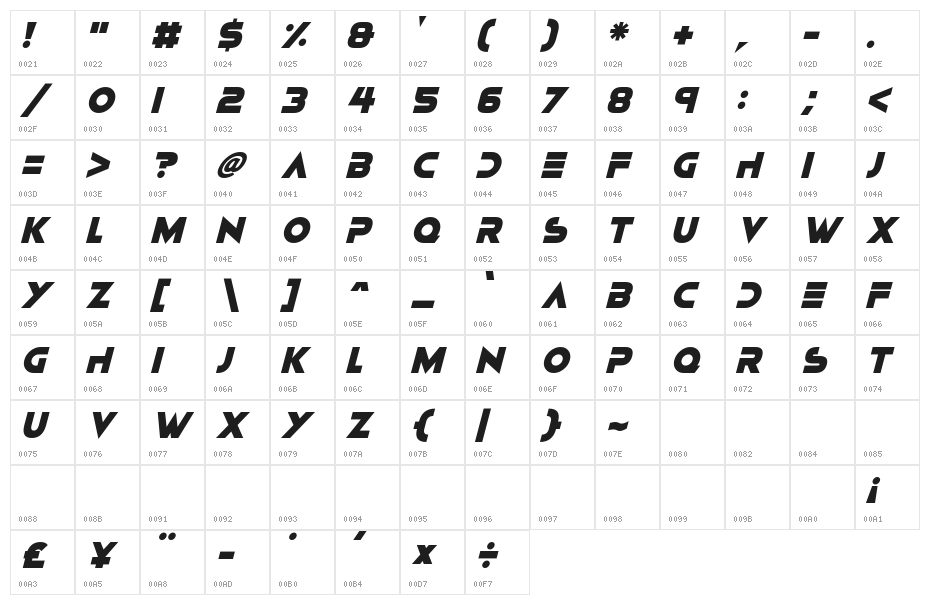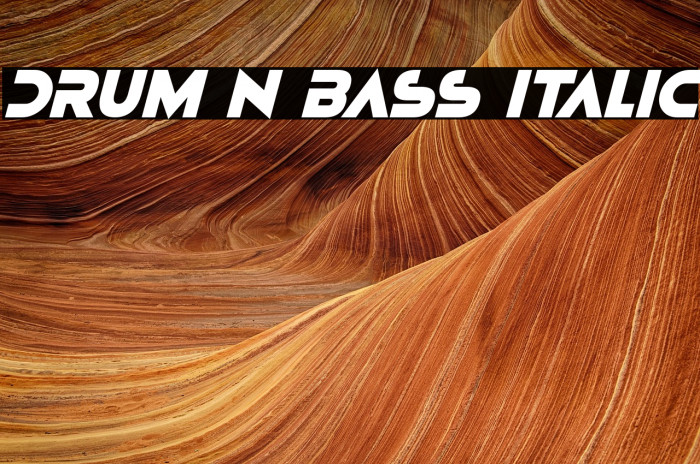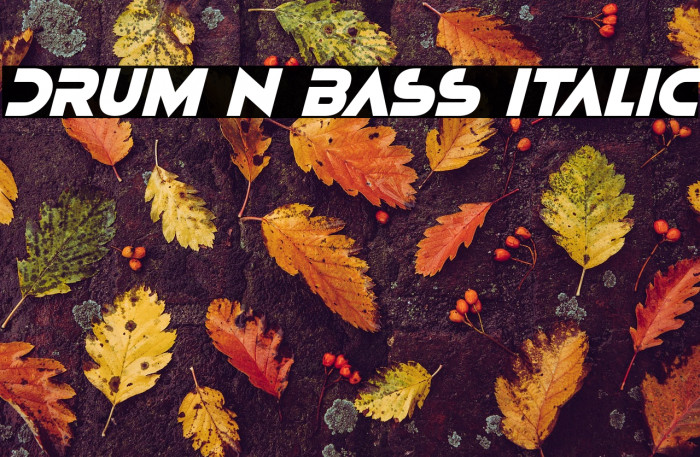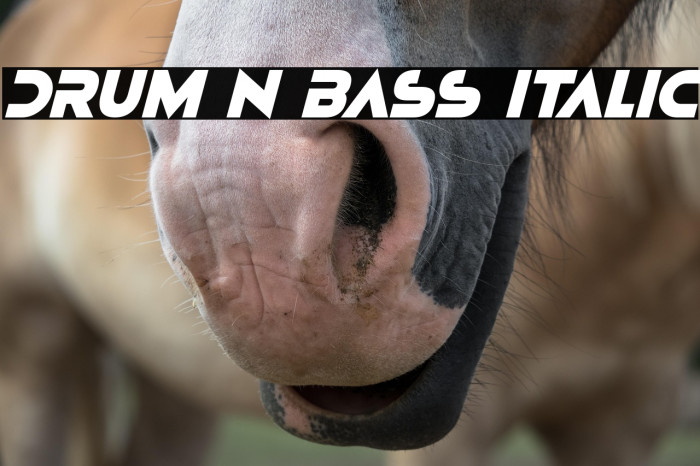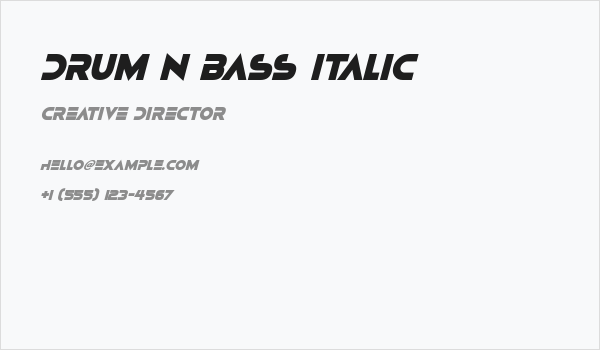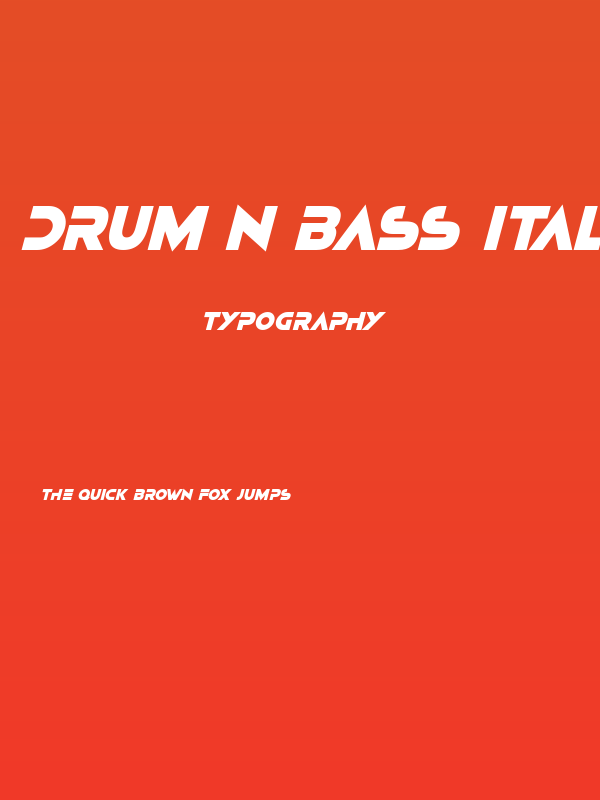
Drum N Bass Italic Font
Drum N Bass Italic Description
This dynamic and bold font features a distinctly modern and futuristic style, characterized by its italicized, forward-leaning letters that convey a sense of motion and energy. The characters are crafted with thick, uniform strokes, providing a strong visual impact. The angular cuts and geometric shapes give it a unique, edgy appearance, making it stand out in any design. The font maintains a consistent weight throughout, ensuring readability while adding a touch of boldness. Its clean lines and sharp angles make it suitable for projects that require a contemporary and assertive look.
| Proposed Projects | Ideal for music album covers, event posters, sports branding, and tech-related designs. |